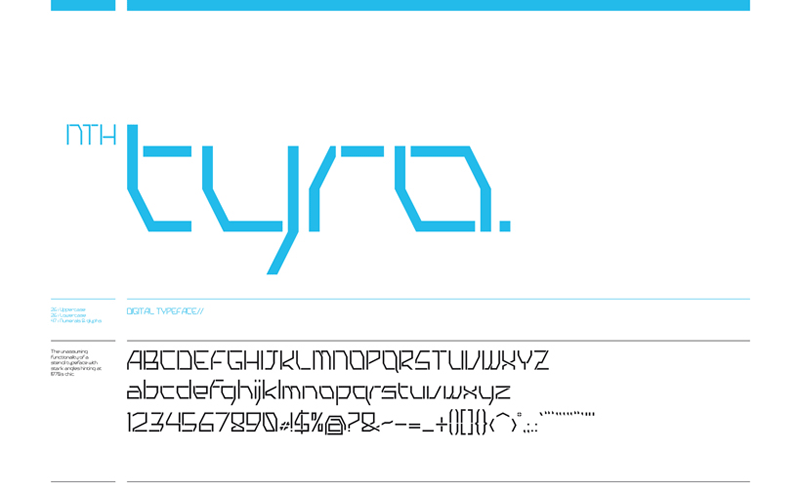
Font name: | Tyro |
Author: | North |
Note by North | |
The unassuming functionality of a stencil typeface with stark angles hinting at 1970’s chic. tyro = learner / beginner Please donate if you can. |